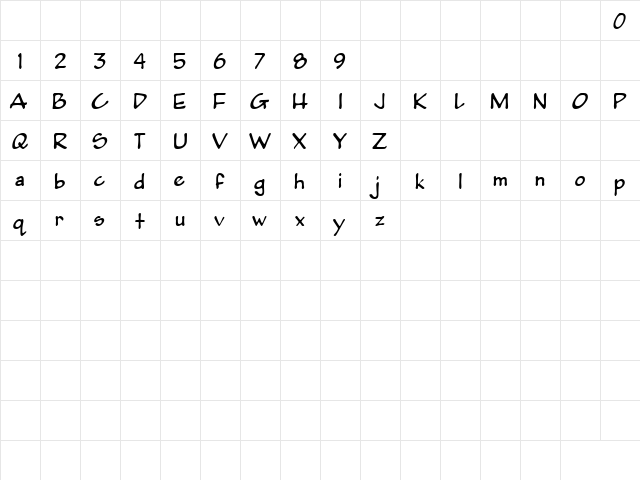
PumpkinseedHeavy Regular Font Preview
PumpkinseedHeavy Regular
PumpkinseedHeavy Regular Font Details
Design Context for PumpkinseedHeavy Typeface
PumpkinseedHeavy is a composed and adaptable typeface that performs quietly and consistently across a wide range of design contexts.